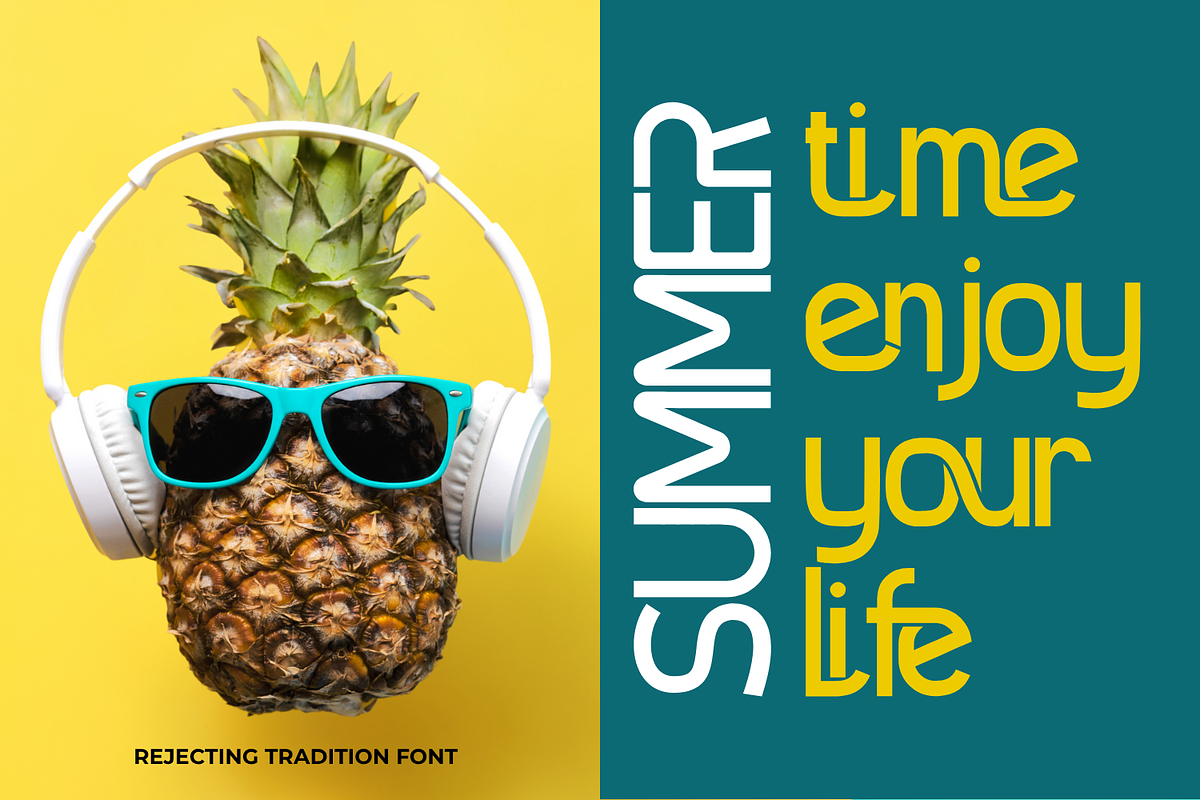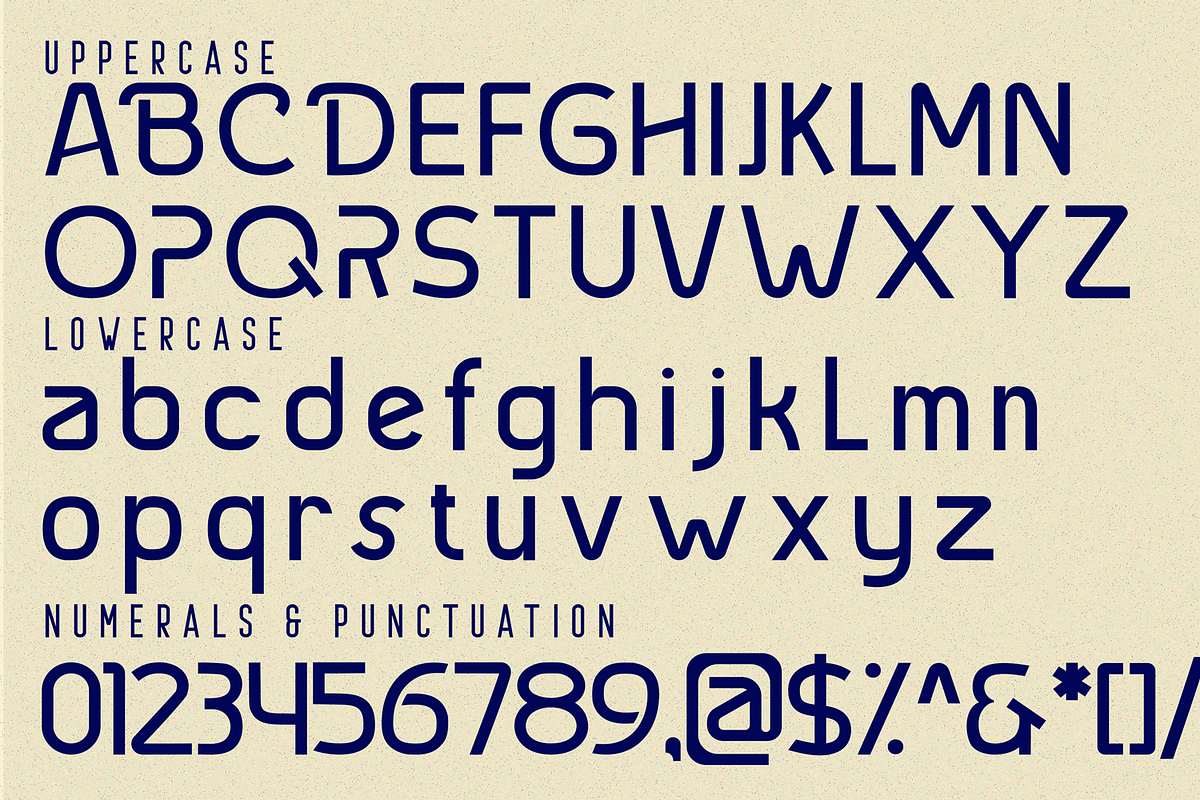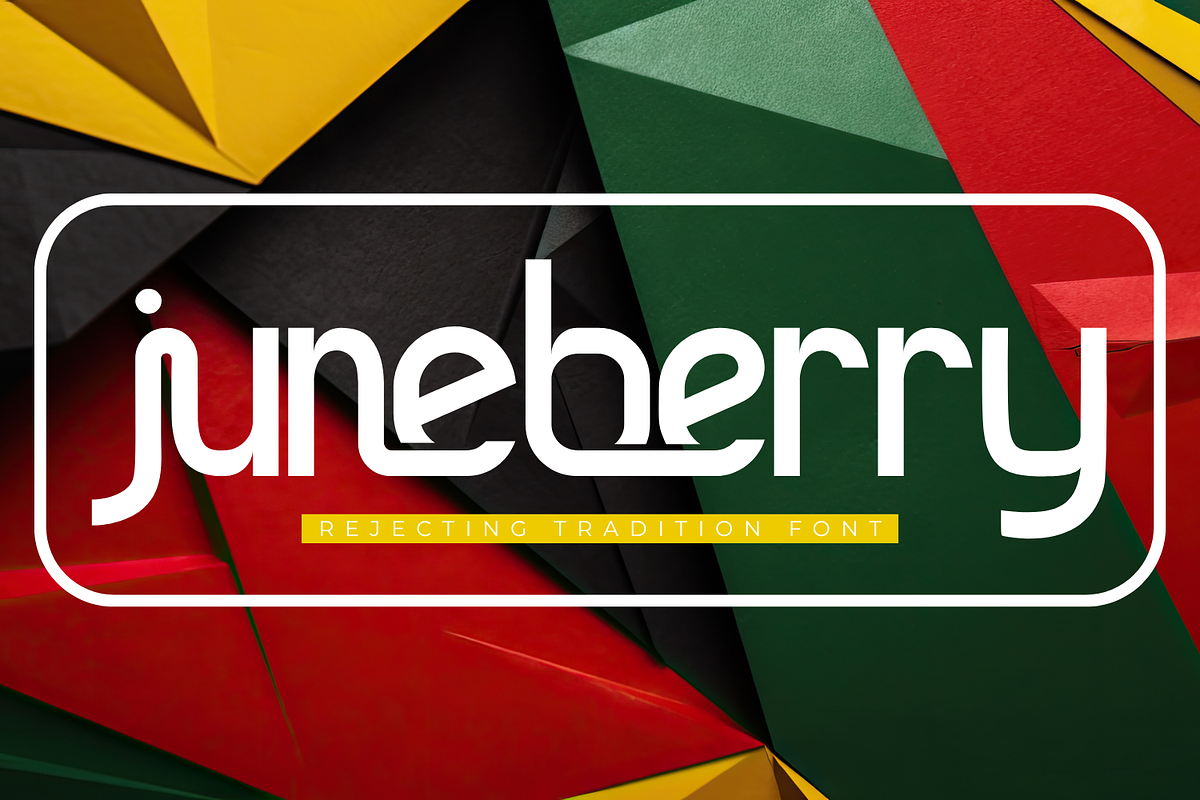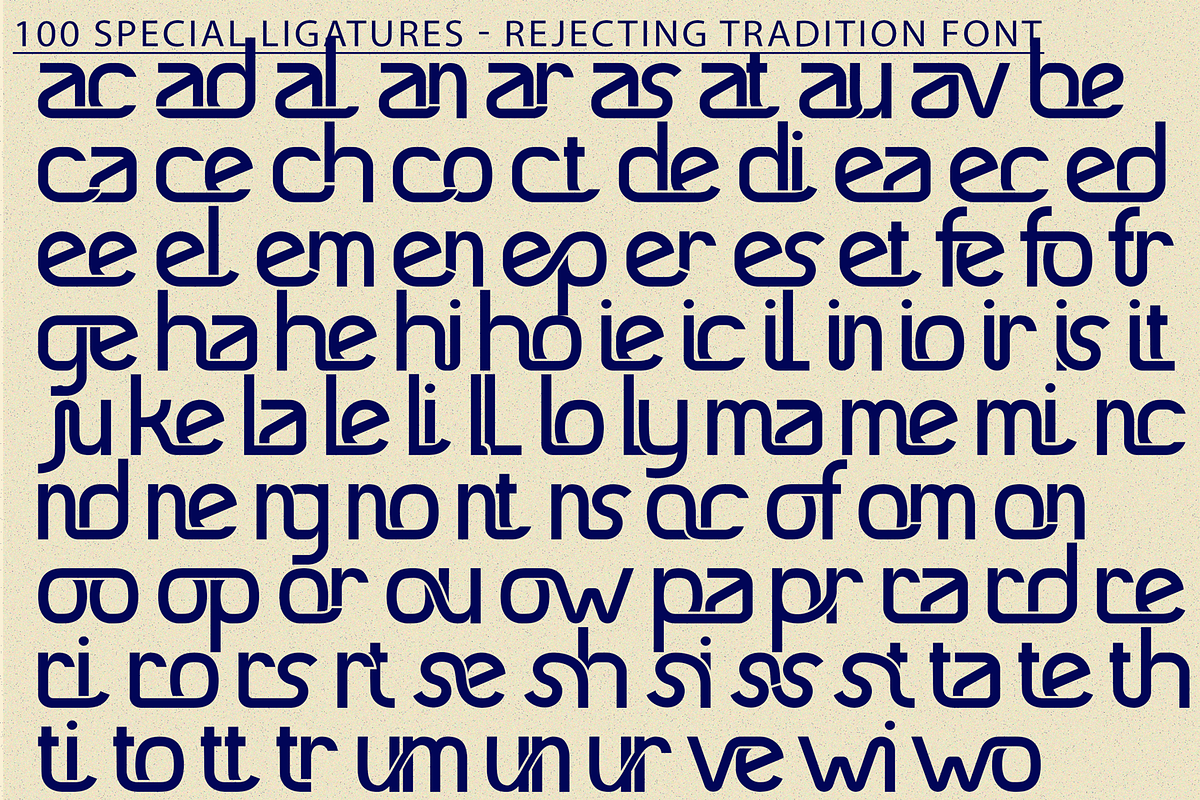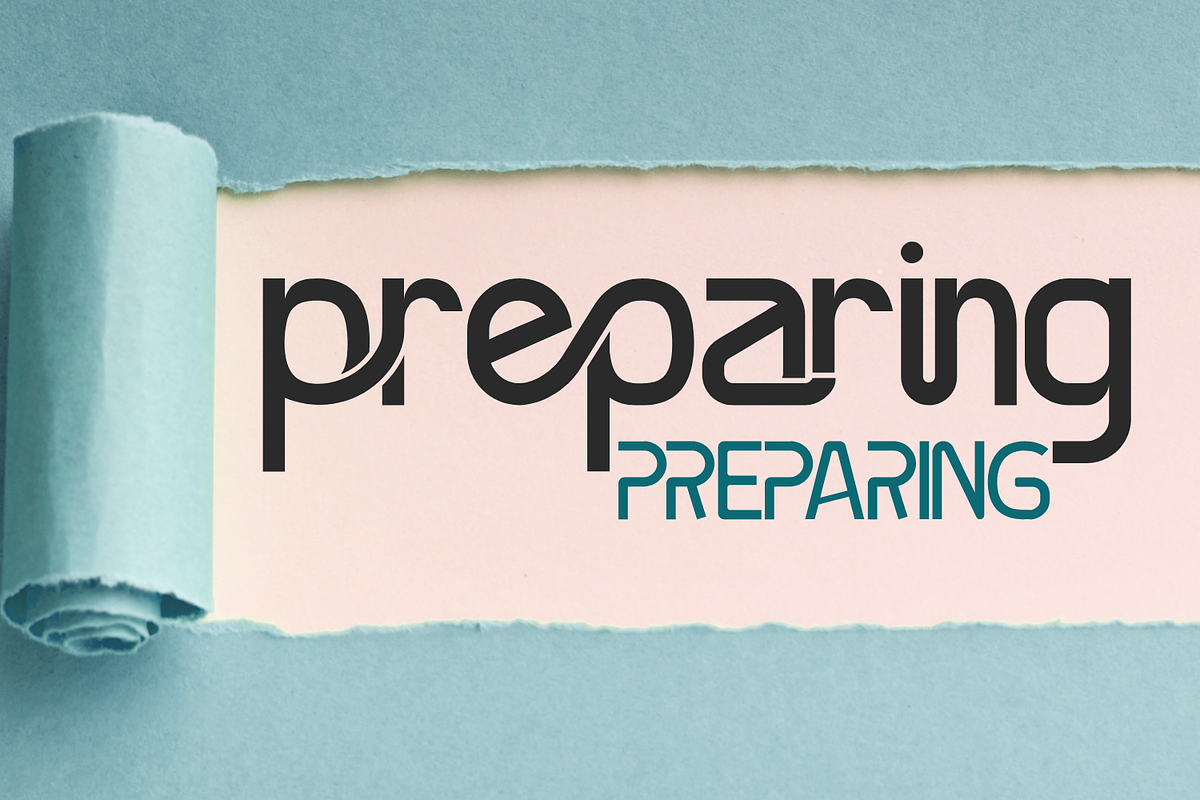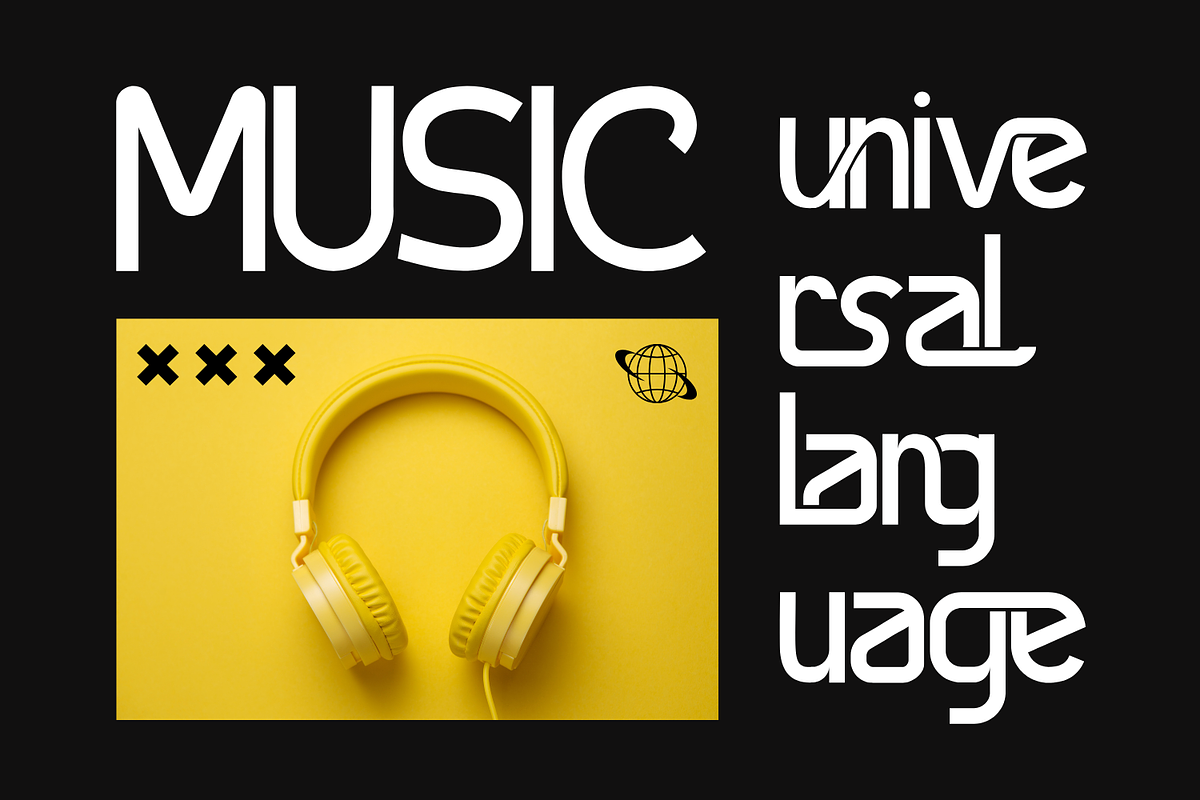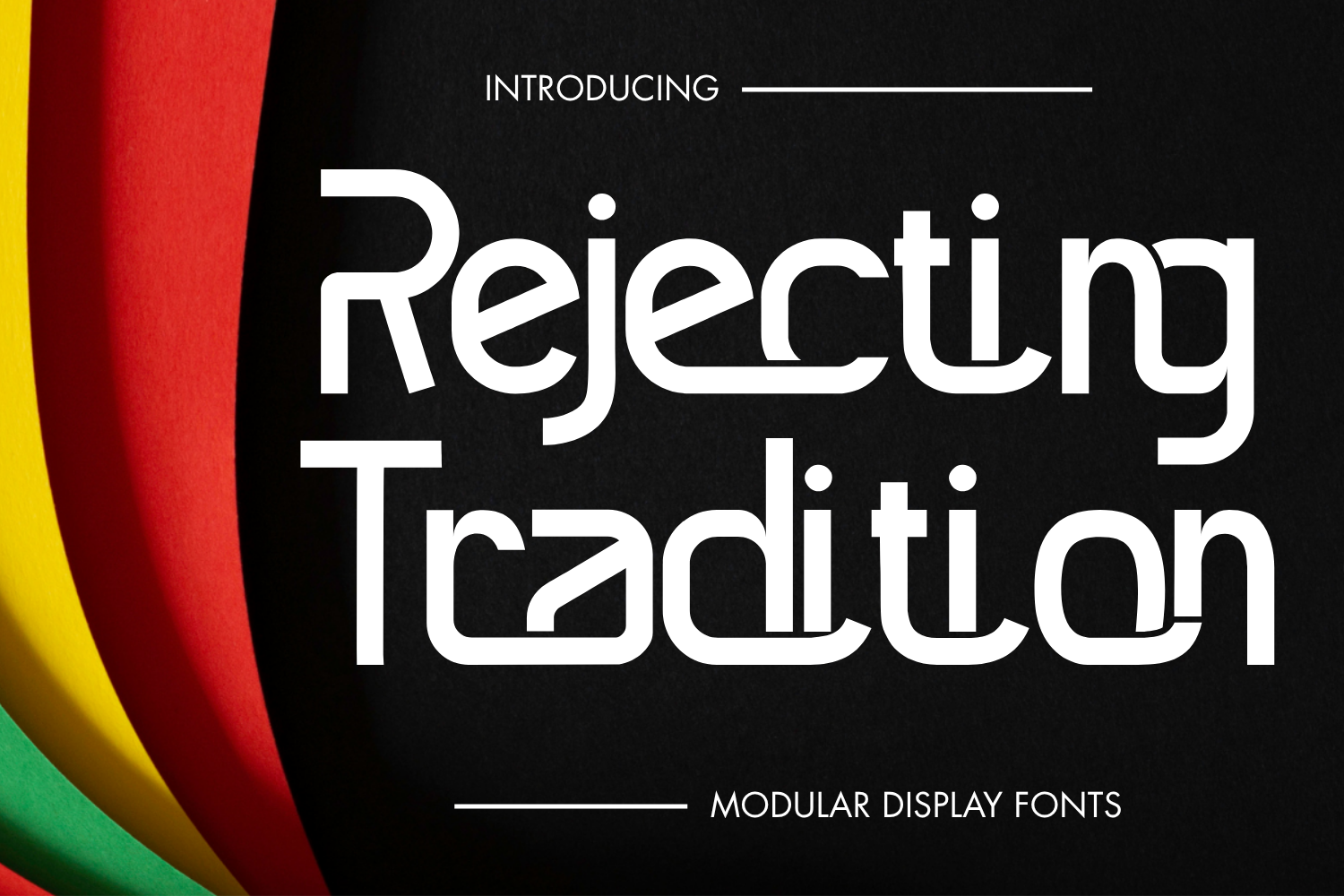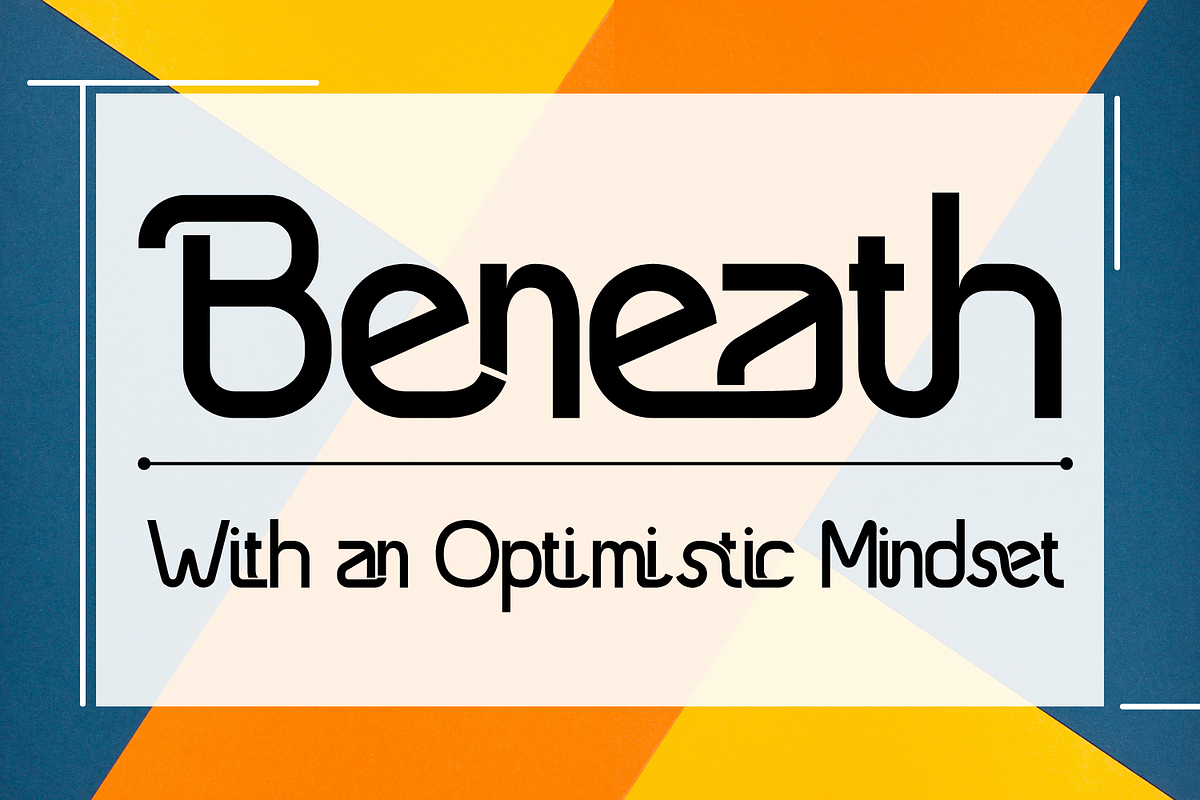
Rejecting Tradition Font
Rejecting Tradition - Futuristic Font is a futuristic geometric sans-serif display font designed to challenge conventions and embrace bold innovation. With its clean-cut architecture and stylized curves that bend beneath the baseline, this typeface projects confidence, clarity, and a sense of technological rebellion.
Ideal for branding, editorial layouts, digital interfaces, posters, and album covers that need a distinct voice, Rejecting Tradition strikes the perfect chord between structure and subversion. Whether you're building a cyberpunk aesthetic, tech startup brand, or avant-garde fashion label, this font adds a crisp, modern edge to your visual language.
- Uppercase & Lowercase Letters
- Approx. 100 Special Ligatures
- Full support for Accented Characters
- Unique geometric terminals and horizontal cuts
About 100 ligatures combined with Stylistic Alternates Font:
ac ad al an ar as at au av be ca ce ch co ct de di ea ec ed ee el em en ep er es et fe fo fr ge ha he hi ho ie ic il in io ir is it ju ke la le li ll lo ly ma me mi nc nd ne ng no nt ns oc of om on oo op or ot ou ow pa pr ra rd re ri ro rs rt se sh si so ss st ta te th ti to tr tt um un ur ve wi wo